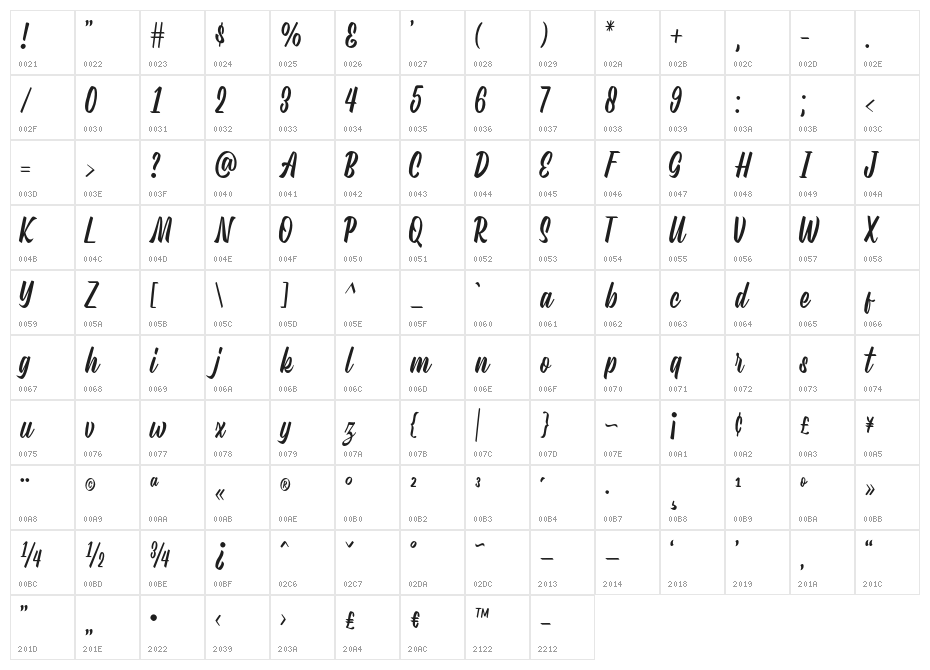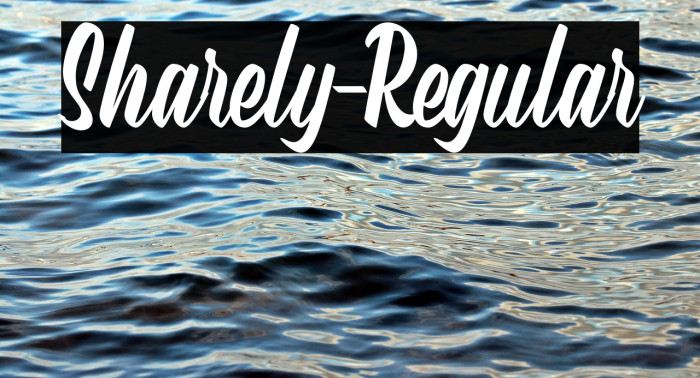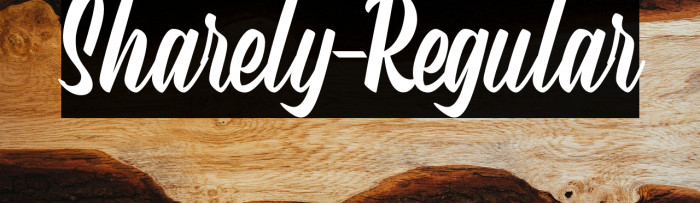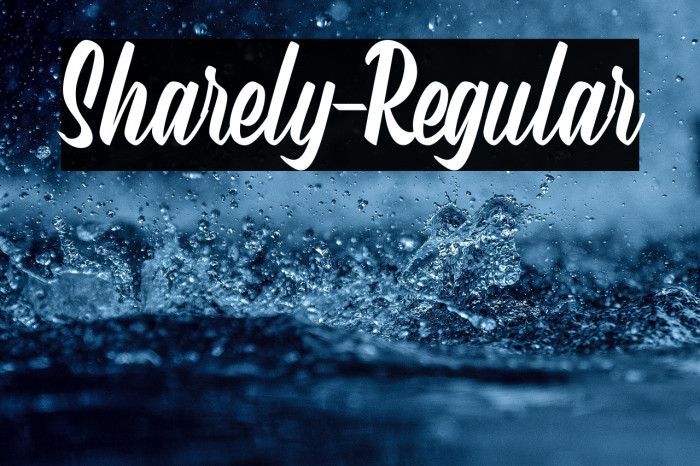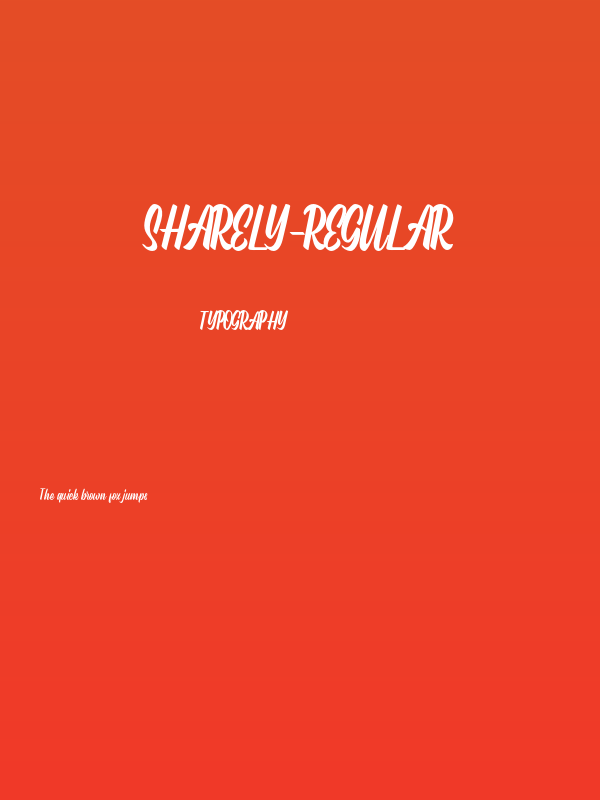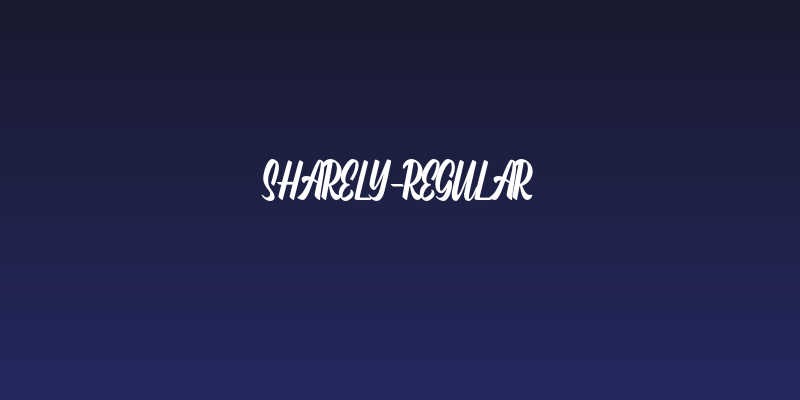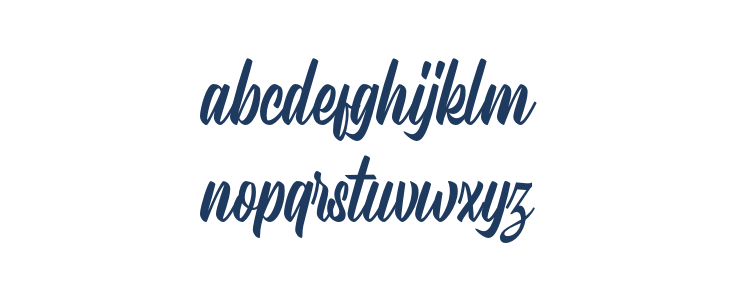
Sharely-Regular Font
Sharely-Regular Description
This font features a dynamic and flowing script style, characterized by its elegant and connected letterforms. The uppercase letters are bold and slightly slanted, giving a sense of movement and energy. The lowercase letters maintain a consistent flow, with smooth curves and a harmonious balance between thick and thin strokes. Numbers and special characters follow the same stylistic approach, ensuring a cohesive look across all elements. The overall appearance is both stylish and legible, making it suitable for a variety of creative applications.
| Proposed Projects | Ideal for branding, invitations, greeting cards, and decorative headlines. |